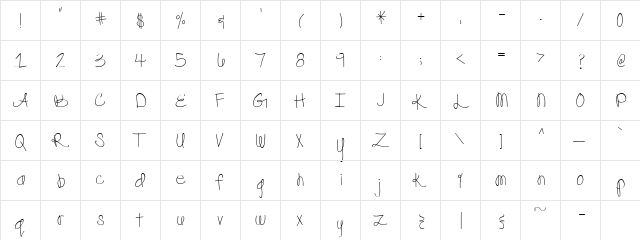
CK Amy Loves Ian Regular
Design Context for CK Amy Loves Ian Typeface
CK Amy Loves Ian is a composed and adaptable typeface that performs quietly and consistently across a wide range of design contexts.